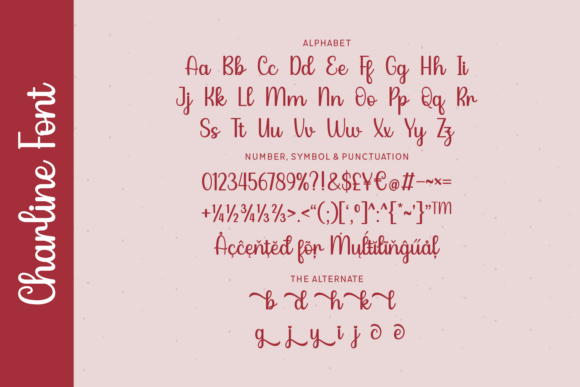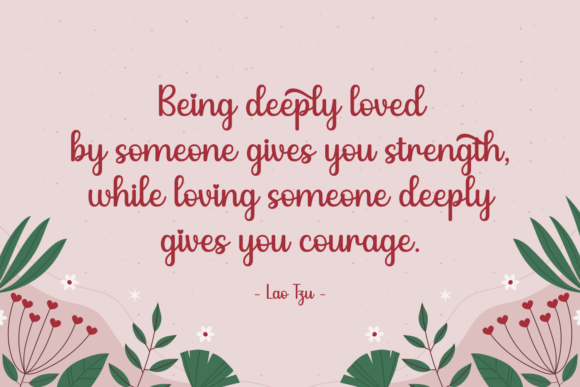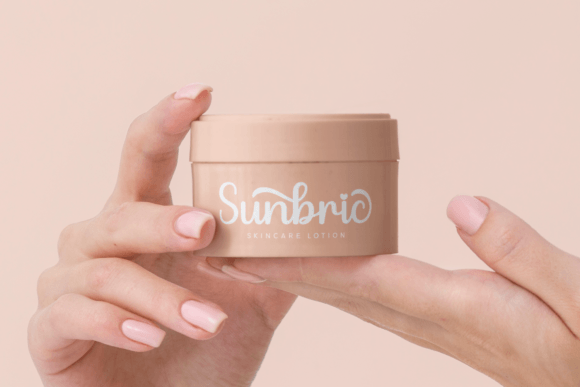
Discover the Elegance of Charline Font: Elevate Your Designs with Its Lovely Script
Are you searching for a font that can add a touch of sophistication and warmth to your designs? Look no further than Charline Font. This lovely script font features elegant, flowing letters that are sure to make your projects stand out. With its beautiful curves and stylish design, Charline is perfect for a variety of creative endeavors, from invitations and greeting cards to branding and advertising.
The Characteristics of Charline Font
Charline Font is a script font that boasts a range of characteristics that make it both versatile and visually appealing. Its elegant, cursive letters flow smoothly into one another, creating a sense of continuity and harmony. The font’s curves are beautifully proportioned, with a subtle flair at the terminals that adds to its sophistication.
One of the key features of Charline Font is its ability to add a warm and personal feel to any project. Whether you’re designing a wedding invitation, a greeting card, or a brand identity, this font is sure to bring a touch of elegance and refinement. Its stylish design and flowing letters make it perfect for projects that require a high level of sophistication and poise.
Uses for Charline Font
Charline Font is a versatile font that can be used in a wide range of creative projects. Here are just a few examples of how you can use this lovely script font:
- Invitations: Charline Font is perfect for designing elegant wedding invitations, baby shower invitations, and other special occasion invites.
- Greeting Cards: Add a touch of warmth and personality to your greeting cards with Charline Font.
- Branding: Use Charline Font to create a sophisticated brand identity that sets your business apart.
- Advertising: Charline Font is a great choice for advertising projects that require a high level of elegance and refinement.
- Stationery: Design beautiful stationery, including letterheads, envelopes, and notecards, with Charline Font.
Tips for Using Charline Font
To get the most out of Charline Font, here are a few tips to keep in mind:
- Use it sparingly: Charline Font is a elegant font that can quickly become overwhelming if overused. Use it sparingly to add a touch of sophistication to your designs.
- Pair it with a sans-serif font: Pairing Charline Font with a sans-serif font can create a beautiful contrast that adds visual interest to your designs.
- Experiment with colors: Charline Font looks beautiful in a range of colors, from classic black and white to bold and bright hues.
- Pay attention to spacing: Make sure to pay attention to the spacing between letters and words to ensure that your text is easy to read.
Charline Font is a lovely script font that can add a touch of elegance and sophistication to any design project. With its beautiful curves and stylish design, it’s perfect for invitations, greeting cards, branding, advertising, and more. By following the tips outlined above, you can use Charline Font to create stunning designs that are sure to impress.
Whether you’re a designer, crafter, or DIY enthusiast, Charline Font is a great addition to your font library. So why not give it a try and see how it can elevate your designs?